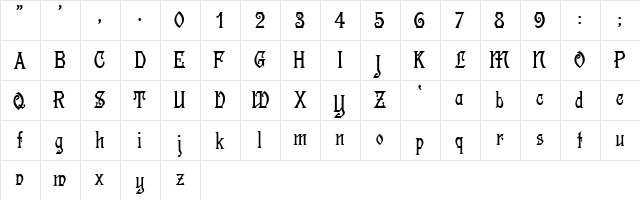
Descant!" Regular
Design Context for Descant!" Typeface
Descant!" is a composed and adaptable typeface that performs quietly and consistently across a wide range of design contexts.